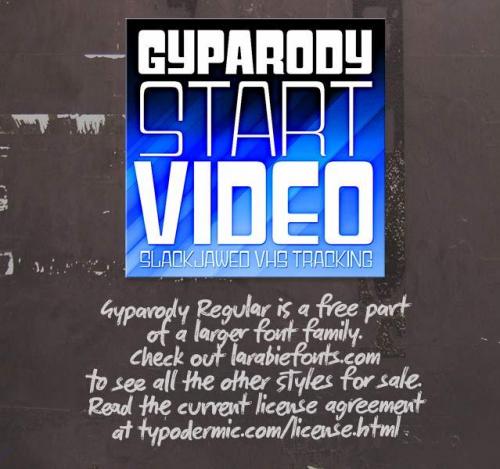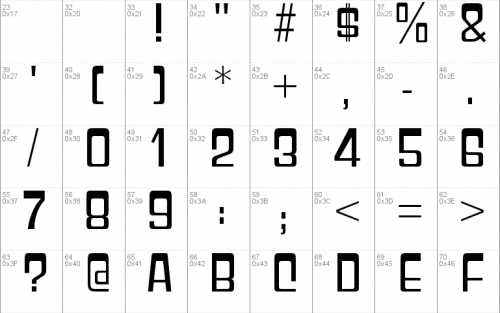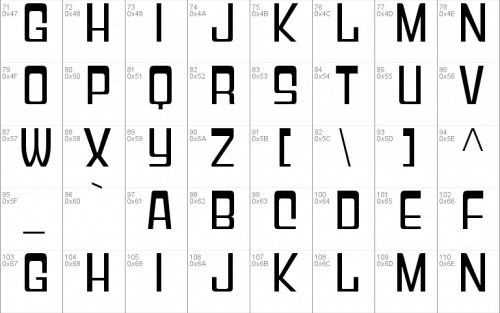
Gyparody Font
Gyparody Regular was created in 2000. A decade later, a new version and full Gyparody family has been released. This version sticks more closely to the design of the original font on which Gyparody was based: a late 1960s font called Anonymous. An alternate X and Y are available as OpenType stylistic alternates.